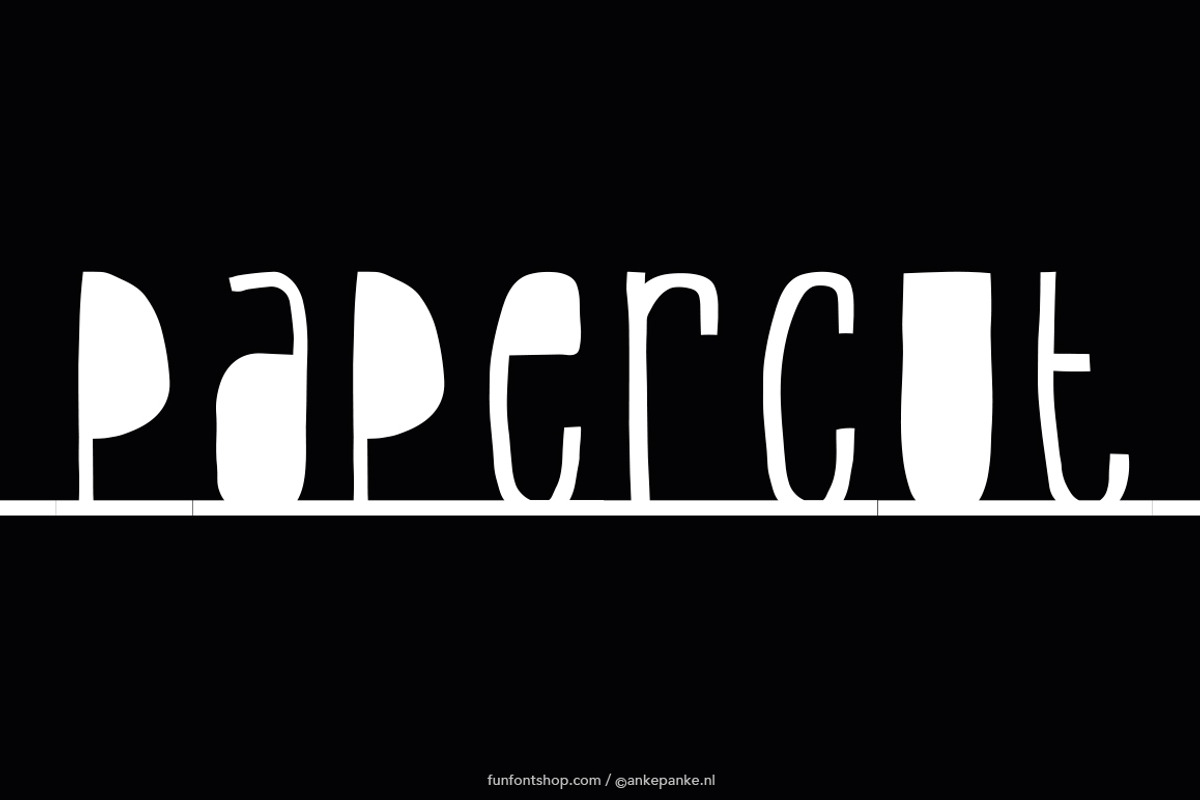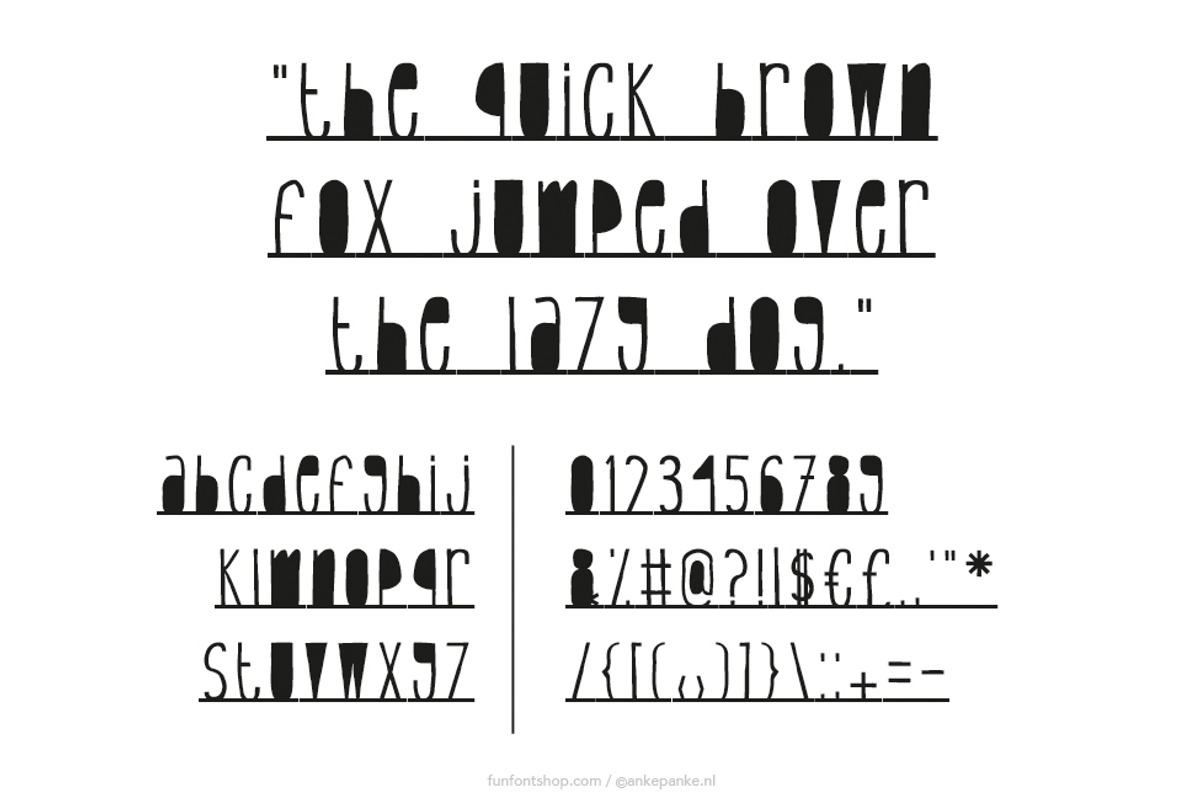
Papercut handmade Font
This playful font is inspired by paper letter banners. The space is a stripe, so when you type, the words are connected. This font was first draw by hand, scanned, vectorized and converted to a TTF file so you type with it. They have some imperfections, but I believe that adds to the handmade feeling.
- Letters Uppercase and numbers
- Punctuation !?#%&*+=-,.:;’"/|£€$@([])